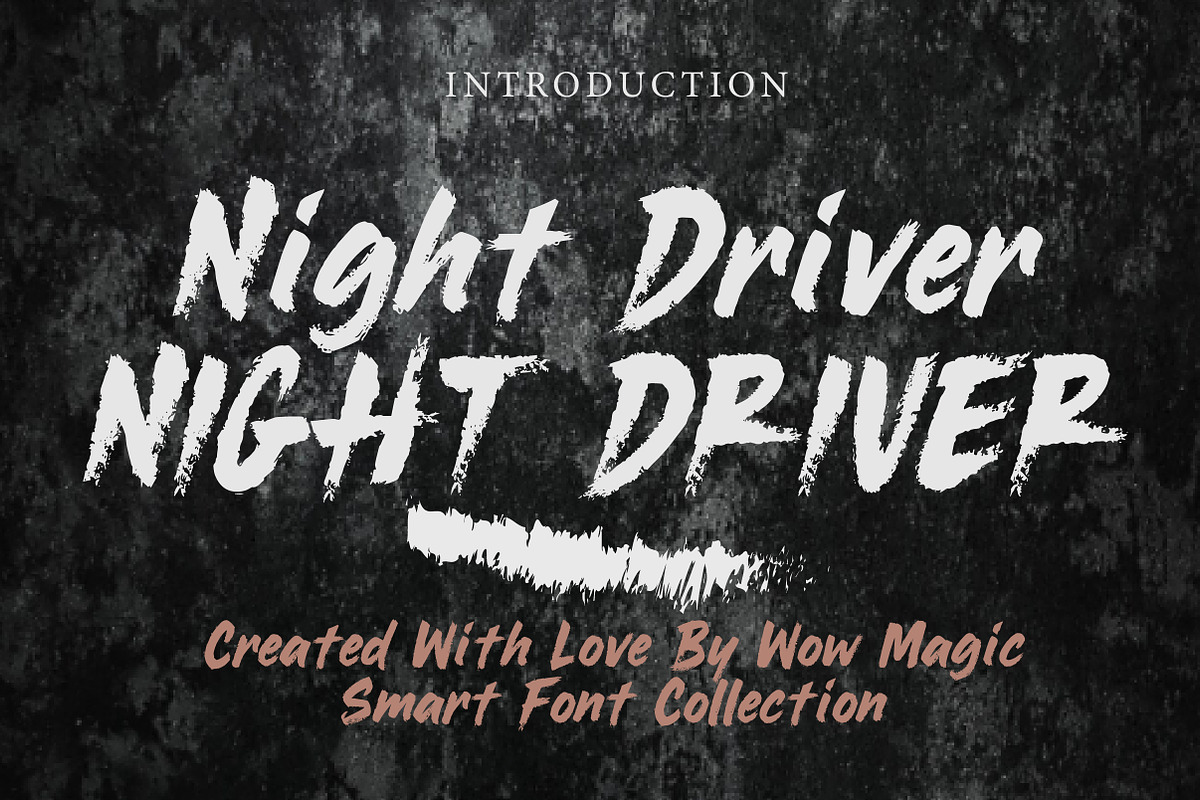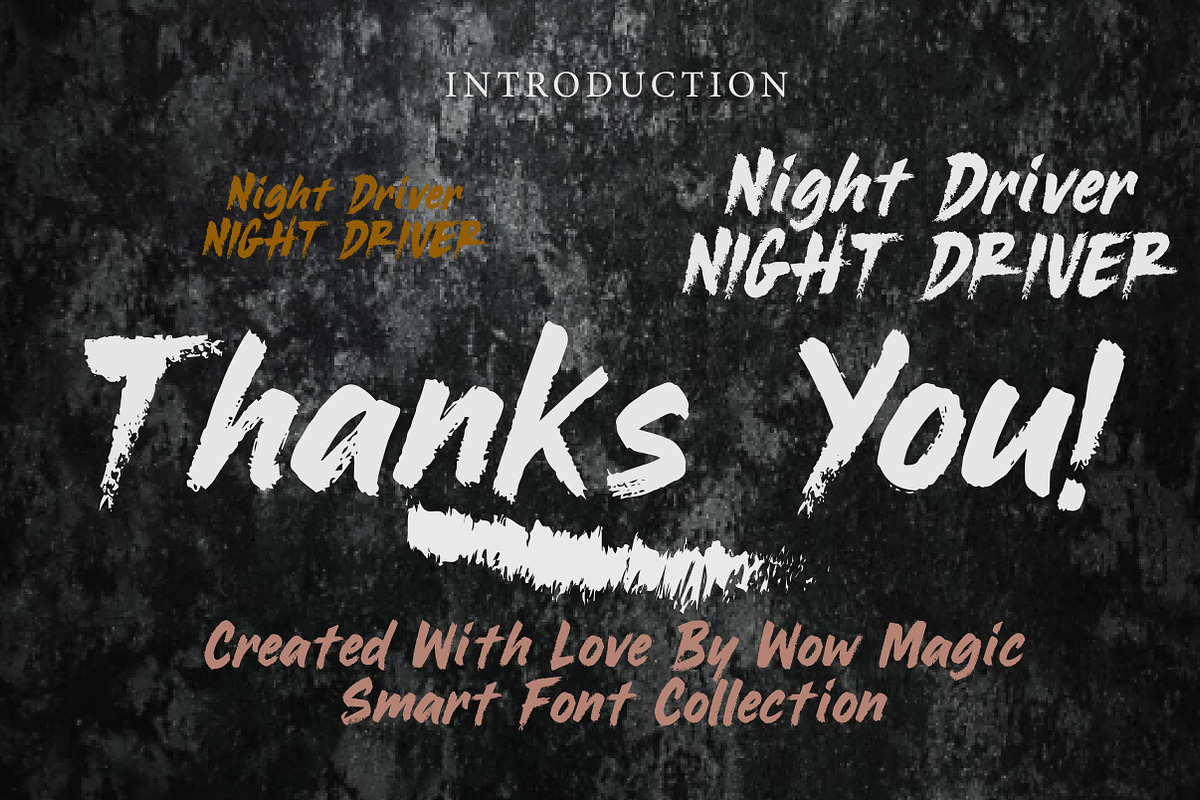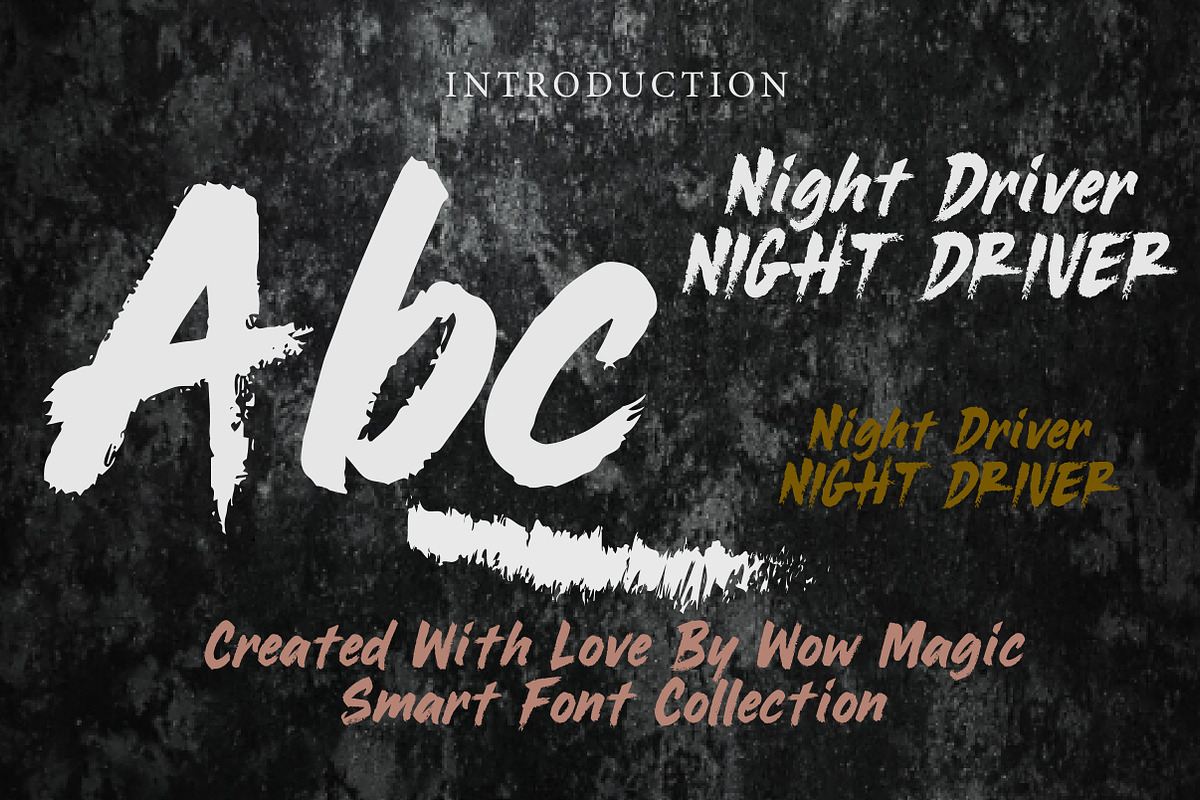
Night Driver
Night Driver is a bold and energetic brush display font inspired by speed, motion, and late-night urban vibes. Featuring rough brush strokes, sharp edges, and dynamic movement, this typeface delivers a powerful hand-painted look that feels raw, expressive, and full of attitude.
The textured strokes and slanted flow create a sense of motion and intensity, making it perfect for posters, music covers, streetwear branding, logos, social media graphics, and action-driven headline designs. Its gritty and authentic brush style adds depth and personality, making every word feel alive and impactful.
Night Driver is ideal for designers who want a font that feels fast, edgy, and full of energy. Whether you're creating a racing theme, urban design, or bold promotional graphic, this font brings a strong and dramatic visual punch.